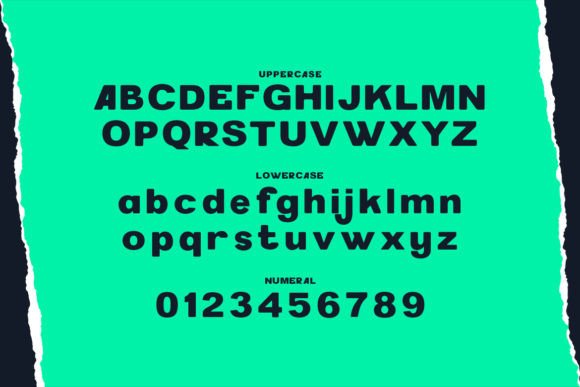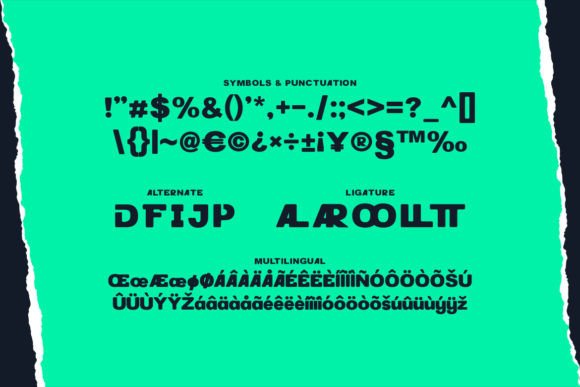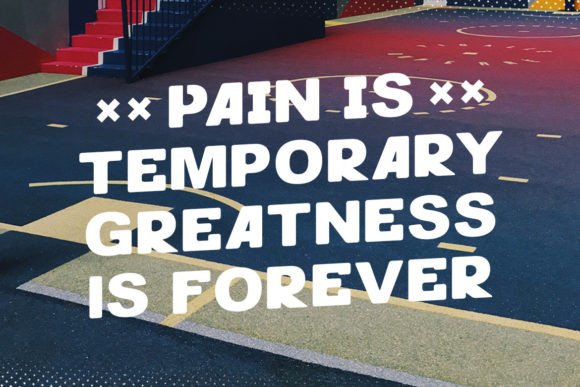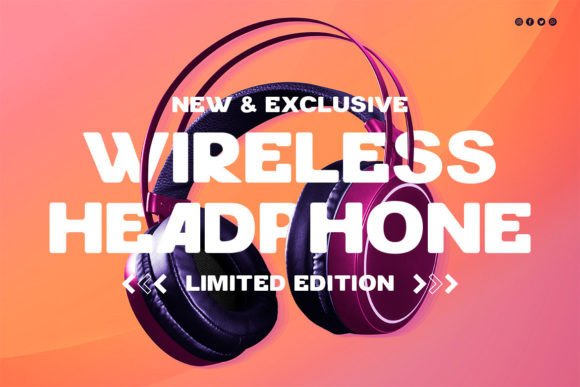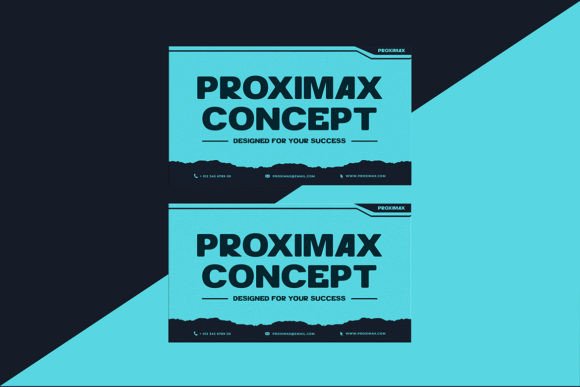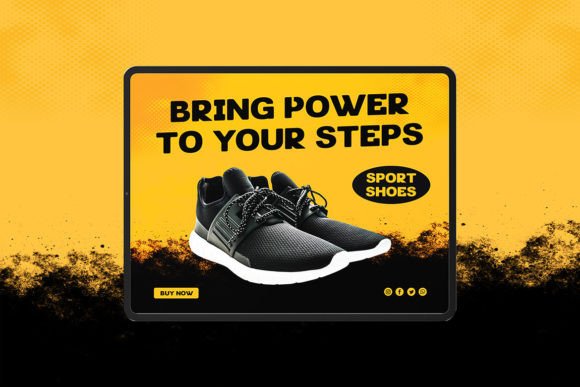
Introducing Fouiroll Font: The Ultimate Choice for Bold and Statement-Making Designs
Are you tired of using fonts that get lost in the crowd? Do you want to make a statement with your design and grab the attention of your audience? Look no further than Fouiroll Font, a powerful and commanding sans serif font that’s perfect for headlines, titles, and other text that needs to stand out.
The Power of Fouiroll Font
Fouiroll Font is designed to be big, bold, and attention-grabbing. Its strong and sturdy letterforms make it the perfect choice for posters, banners, and other large format designs. Each letter is carefully crafted to be easily readable from a distance, ensuring that your message gets across clearly and effectively.
Key Features of Fouiroll Font
- Big and Bold: Fouiroll Font is designed to make a statement. Its large and bold letterforms ensure that your text stands out from the crowd.
- Easy to Read: Despite its boldness, Fouiroll Font is surprisingly easy to read, even from a distance. This makes it perfect for large format designs, such as posters and banners.
- Sans Serif: Fouiroll Font is a sans serif font, which means it doesn’t have any decorative flourishes or lines. This gives it a clean and modern look that’s perfect for a wide range of design applications.
- Versatile: Fouiroll Font is versatile and can be used for a wide range of design projects, from branding and packaging design to posters and banners.
Fouiroll Font is perfect for designers and crafters who want to add a touch of boldness and personality to their designs. Whether you’re creating a logo, a poster, or a social media graphic, Fouiroll Font is sure to make your design stand out.
Use Cases for Fouiroll Font
- Posters and Banners: Fouiroll Font is perfect for creating eye-catching posters and banners that grab attention.
- Branding and Packaging Design: Use Fouiroll Font to create bold and memorable brand identities that stand out from the competition.
- Social Media Graphics: Fouiroll Font is great for creating social media graphics that need to stand out in a crowded feed.
- Headlines and Titles: Use Fouiroll Font to create bold and attention-grabbing headlines and titles that draw the reader in.
Why Choose Fouiroll Font?
So why choose Fouiroll Font over other fonts? Here are just a few reasons:
- Unique and Memorable: Fouiroll Font is a unique and memorable font that’s sure to make your design stand out.
- Highly Versatile: Fouiroll Font can be used for a wide range of design applications, from posters and banners to branding and packaging design.
- Easy to Read: Despite its boldness, Fouiroll Font is surprisingly easy to read, even from a distance.
In conclusion, Fouiroll Font is a powerful and commanding sans serif font that’s perfect for making a statement. Its big and bold letterforms, ease of readability, and versatility make it the perfect choice for designers and crafters who want to add a touch of personality to their designs. Whether you’re creating posters, banners, or other large format designs, Fouiroll Font is sure to get your message across.